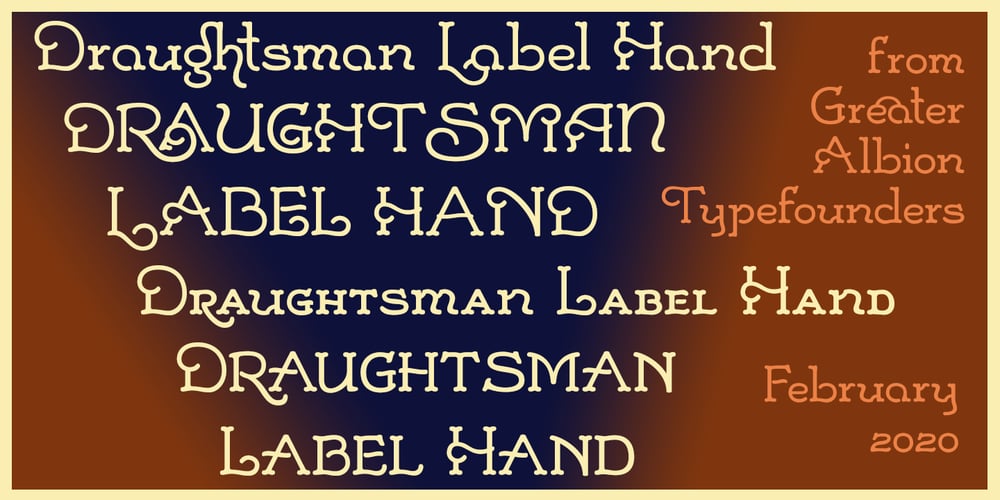
Draughtsman Label Hand
Draughtsman Label Hand font
Draughtsman Label Hand Font Family was designed by Paul James Lloyd and published by Greater Albion Typefounders. Draughtsman Label Hand contains 1 styles and family package options. “Draughtsman Label Hand” was inspired by the beautifully executed hand-lettering one set of 19th century engineering drawings. The result is a typeface that combines great legibility with a wealth of decorative flourishes and lively touches of fun. The typeface includes a range of stylistic alternated, ligatures, small and petite capitals, old-style and lining numerals. Draughtsman Label Hand is designed to take full advantage of the capabilities of the opentype format.